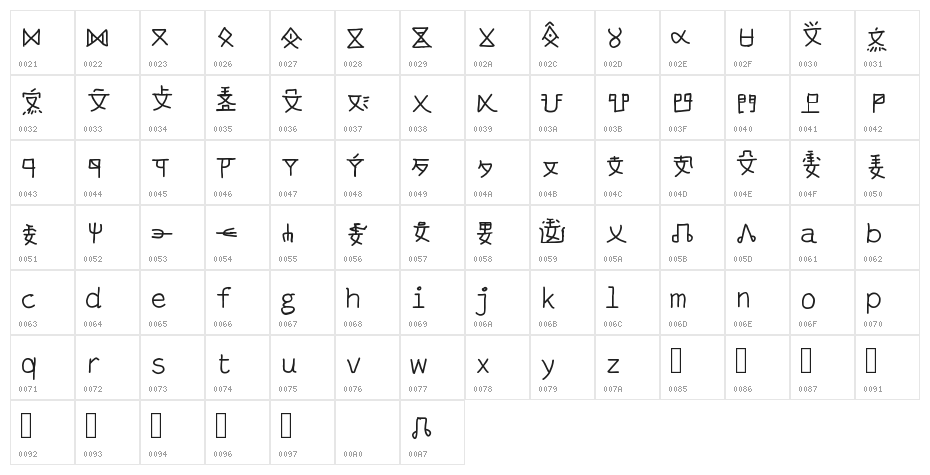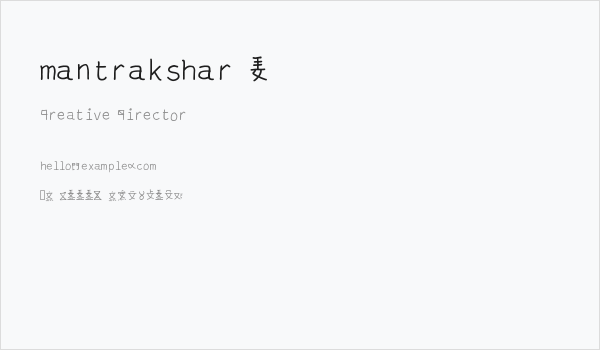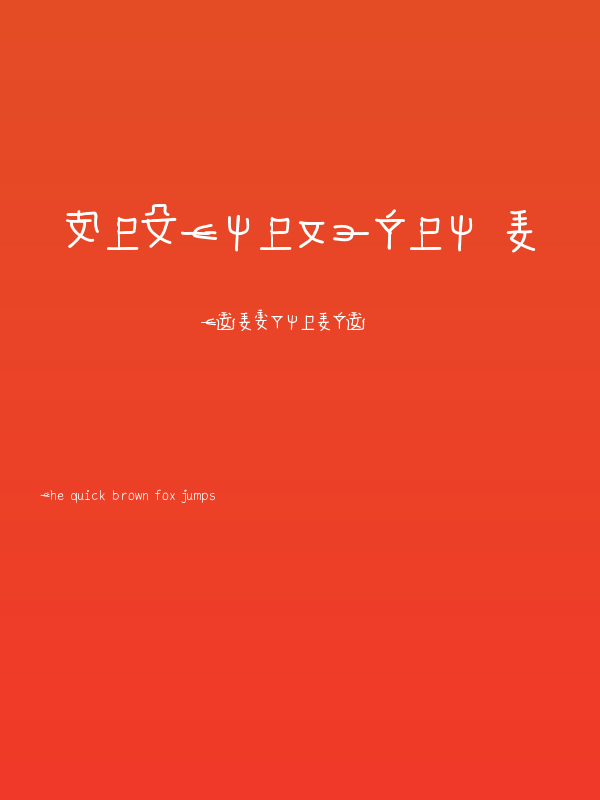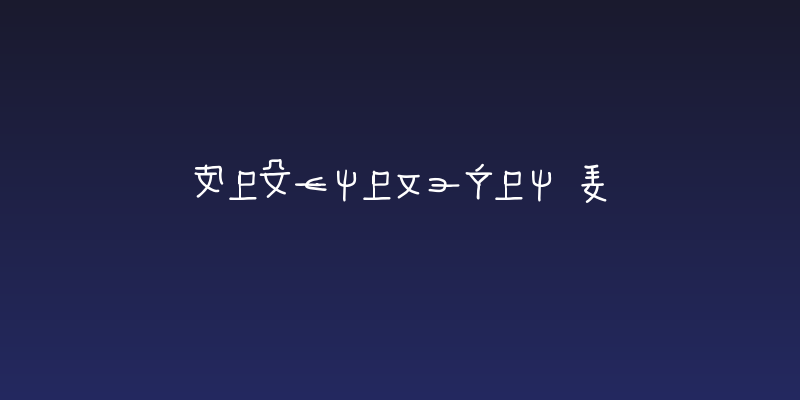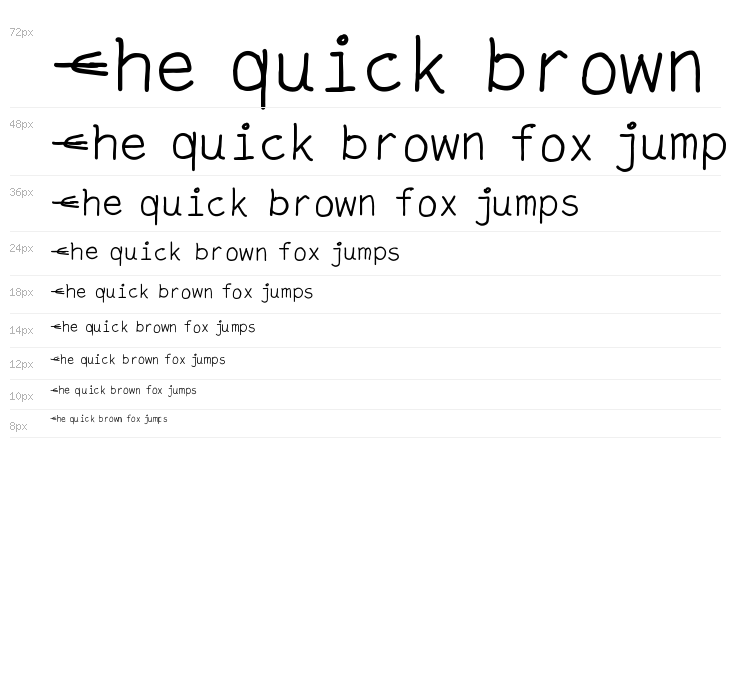
This font features a unique and playful design, characterized by its hand-drawn appearance and irregular line thickness. The uppercase letters have a whimsical, almost tribal look, with angular shapes and unexpected curves. The lowercase letters maintain a more consistent style, with rounded edges and a casual, friendly feel. Numbers and special characters follow the same playful aesthetic, adding to the font's overall charm. The font's uneven strokes and quirky details make it stand out, offering a distinctive personality that can enhance creative projects.
| Use Case | Logos, Posters, Creative projects |
| Proposed Projects | Ideal for children's books, creative posters, unique branding, and artistic projects that require a touch of whimsy. |